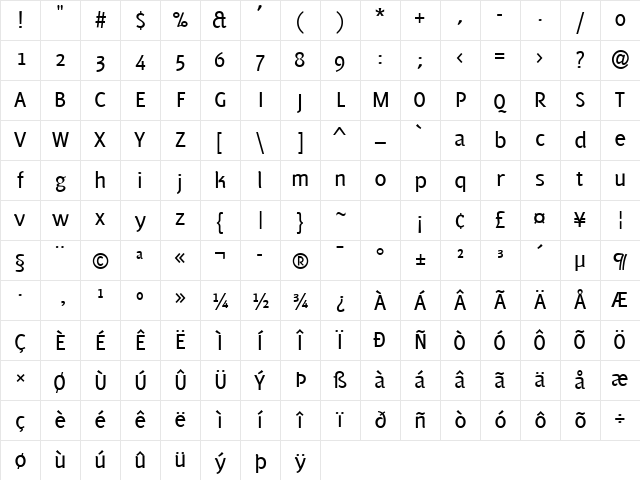
Complete PF Muse Regular glyph index. Displaying only characters natively supported by PF Muse Regular font.
PF Muse is a composed and adaptable typeface that performs quietly and consistently across a wide range of design contexts.
Who designed the PF Muse Regular font?